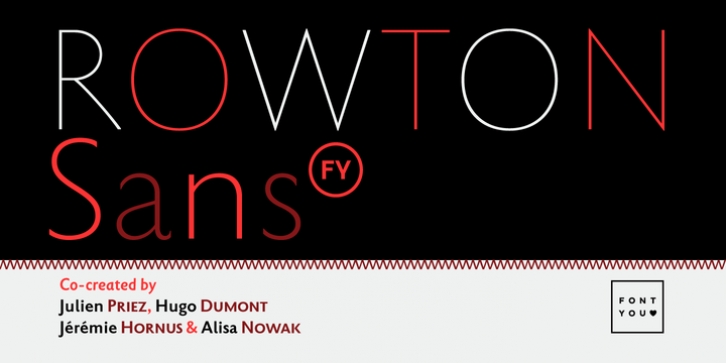
A tribute to Arthur Eric Rowton Gill.
Rowton FY digs its roots in Eric Gill’s views on typography in his book “An essay on Typography”. This typeface has the very British feel of the 20th century. Taking as inspiration the calligraphic illustrations of the book, Julien Priez, Hugo Dumont, Jérémie Hornus, and Alisa Nowak, shaped up a new design. This sans-serif is tuned for text setting (with small capitals) but can also be efficient at larger sizes, specially with its lighter weights, and does a perfect job for signage or logos.
Taking the same source of inspiration a stencil display typeface for bold and bespoke titling is also in the making.
Rowton Sans FY has six weights (from Hairline to Bold), with gently sloped italics companions that have details of cursive handwriting. ExtraBold and Black weights are also part of the project and will be released later.